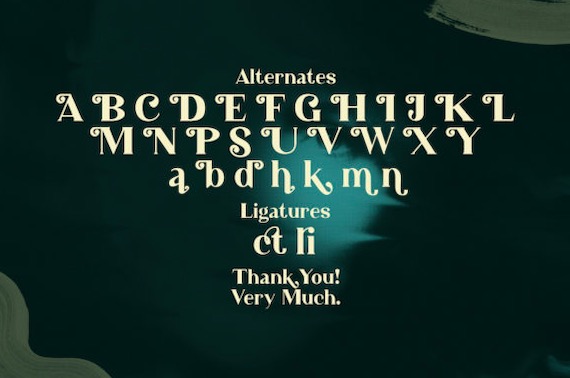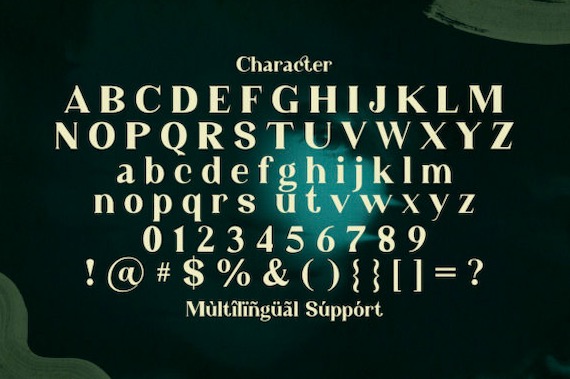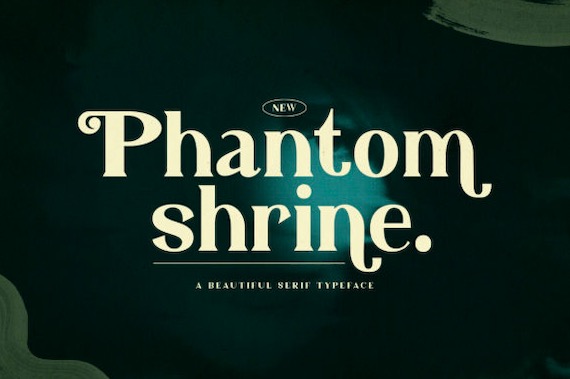
Phantom Shrine Font is an exciting and unique serif typeface that was created and shared by StringLabs. This basic font is incredibly versatile, and it will fit a wide vast of designs. Fall in love with its incredibly stylish look and use it to create spectacular designs. Phantom Shrine font is PUA encoded which means you can access all of the glyphs and swashes with ease!
Phantom Shrine Serif Font